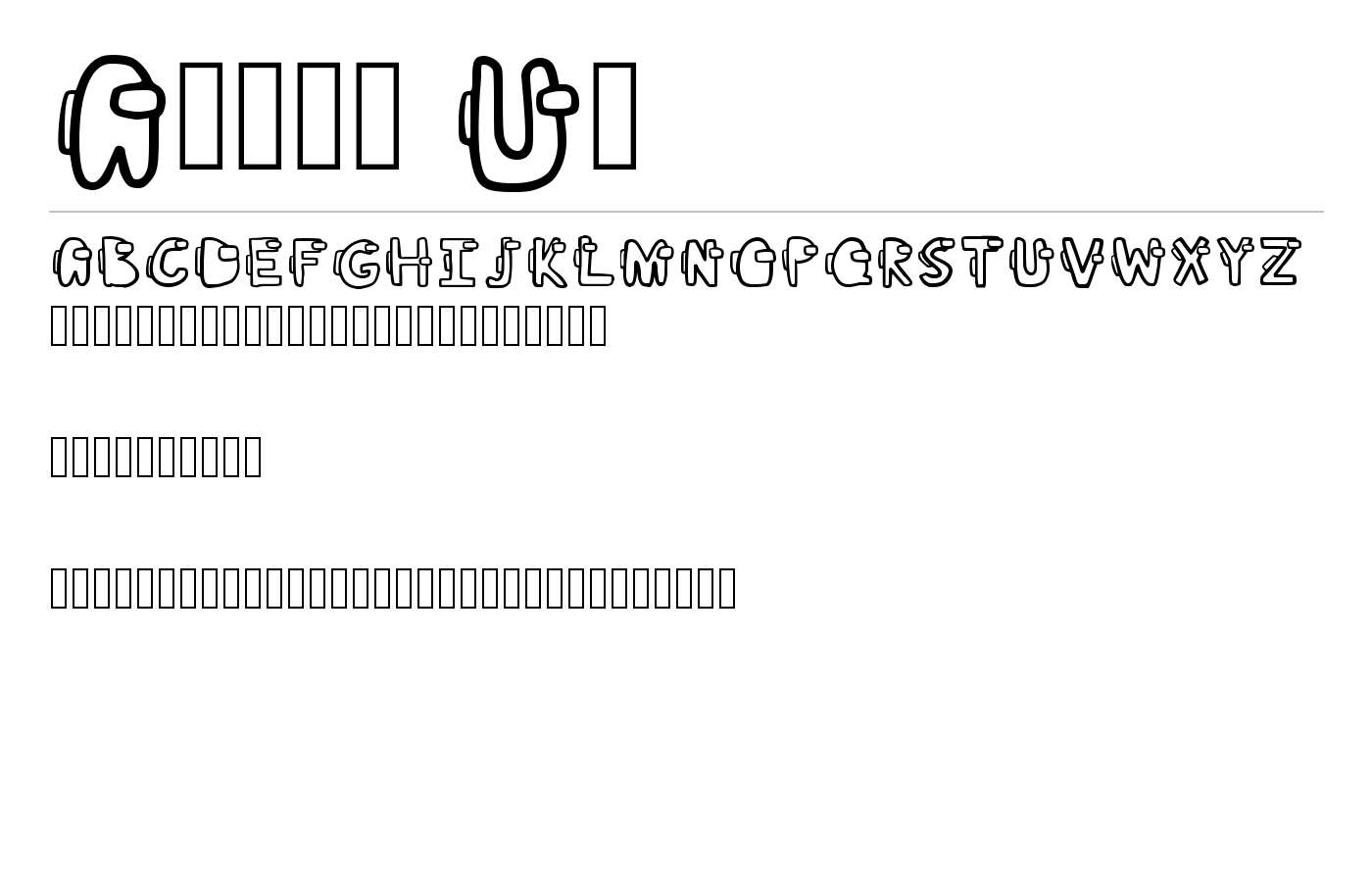
Among Us Font is a playful and quirky sans serif typeface inspired by the popular game characters, featuring rounded, bubbly letterforms with uneven outlines that create a casual, fun vibe. Its bold, condensed shapes and uppercase-only design make it ideal for eye-catching headlines, logos, and gaming-related graphics where a lighthearted, modern, and youthful mood is desired. This font works best in digital and entertainment contexts, adding a unique character and energy to creative projects.
Among Us Font